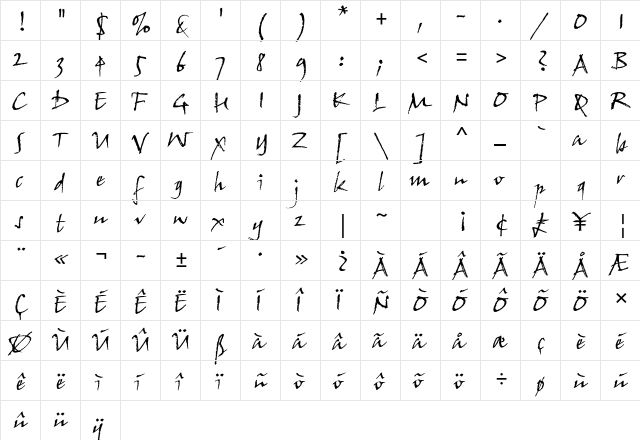
John Handy Std Regular
| Designer | Timothy Donaldson |
Design Context for John Handy Std Typeface
John Handy Std brings a calligraphic fluidity to the page — its connecting strokes and expressive curves give it an unmistakably human quality.
Font Pairing: Combine John Handy Std with a simple geometric sans for maximum contrast — the tension between flowing curves and clean structure is a classic typographic pairing.
Pro Tip: Pair John Handy Std with a clean sans-serif for supporting text. The contrast between fluid script and geometric structure creates an elegant typographic hierarchy.